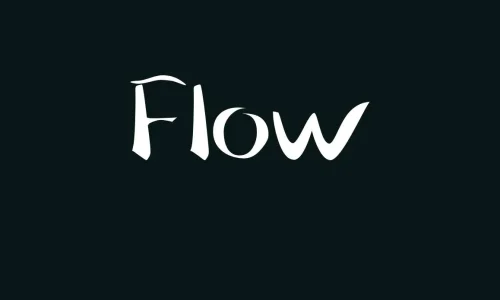
This beautiful cursive font was designed for handwriting. Most of the fonts are designed by hand. But this font is designed for handwriting style calligraphic and brush-based to draw this font.
This font is also handwritten in school for children to draw hand brush font to write and practice on also the designer designs in the logo for every project. It is easy to use and modern-day technology.